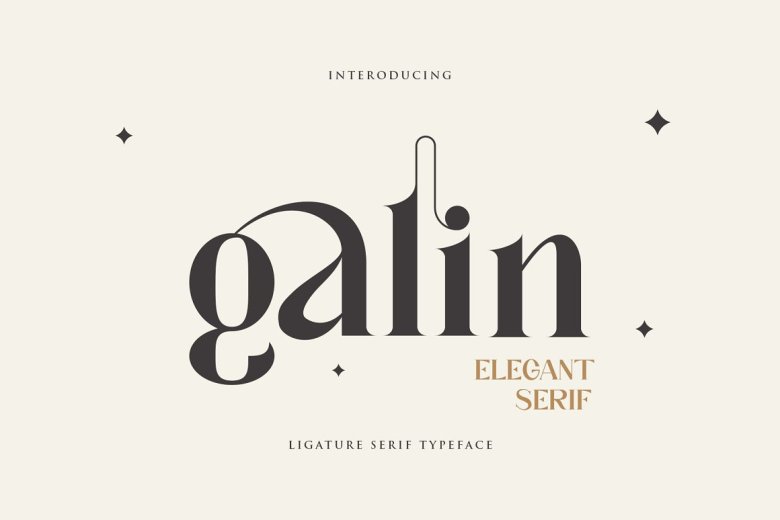
Galin Font
Galin is an elegant and ligature classy serif typeface – It can both be modern or nostalgic and also good for logos, magazine, social media. Already matched up and ready to be used together for your next design! For those of you who are needing a touch of elegant, stylish, classy, chic and modernity for your designs, this font was created for you!
Galin also has varied OpenType features including ligatures, numbers, punctuation, and it also supports other languages.
Galin Modern Ligature Serif Typeface